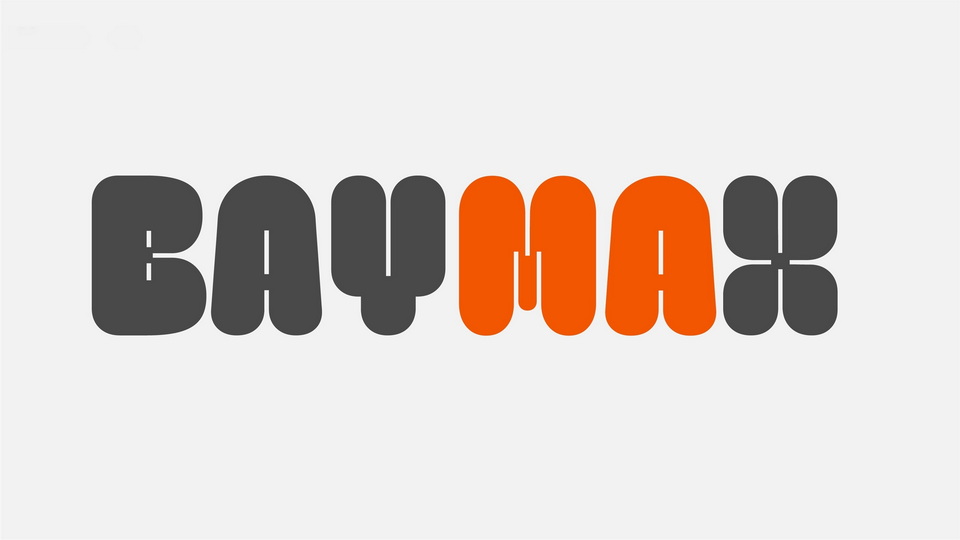
Download Baymax font, a display typeface inspired by the Disney character Baymax and illustrations by Japanese artist Mameko Maeda. Baymax conveys all the softness of the shapes with the help of rounds and folds, but at the same time gives roundness and elasticity with inktraps.
Designer: Ilona Kuzina